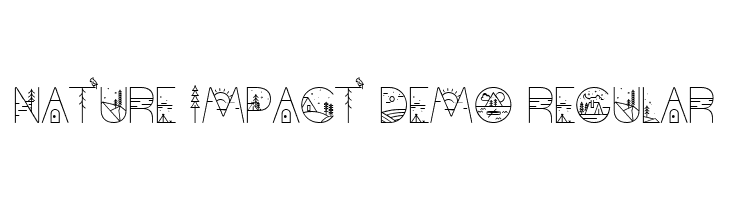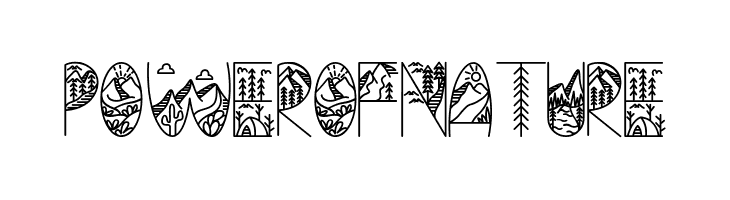
( Fonts by nomlimofont )
A decorative font featuring nature-inspired illustrations within each character.
( Fonts by Ric Stephens )
Animal silhouette font with each glyph as a different wild creature.
( Fonts by 177Studio )
A decorative font with nature-themed illustrations integrated into each letter.